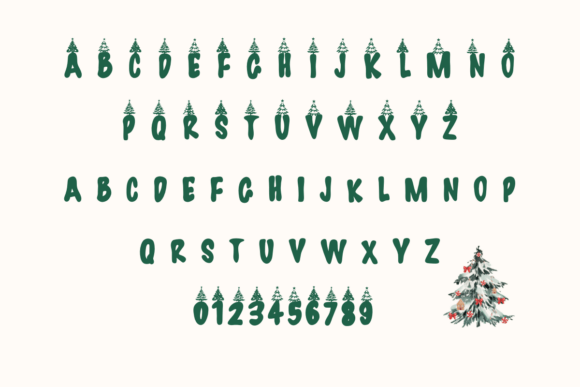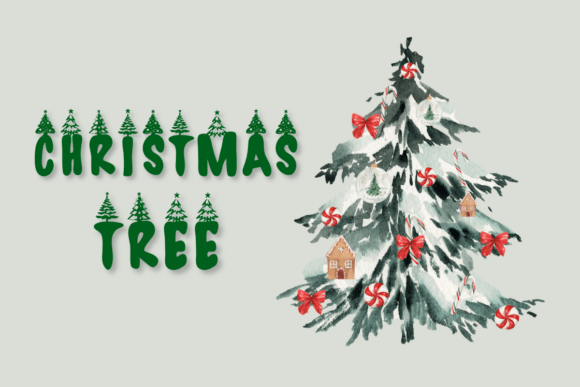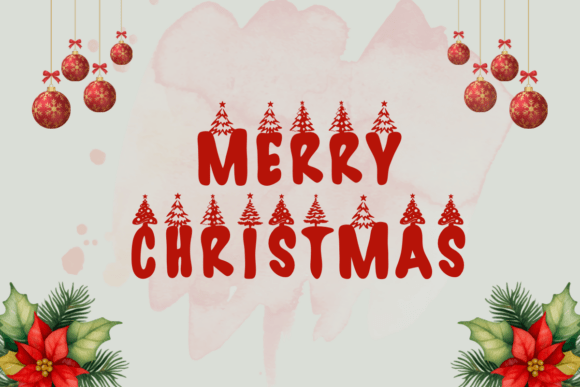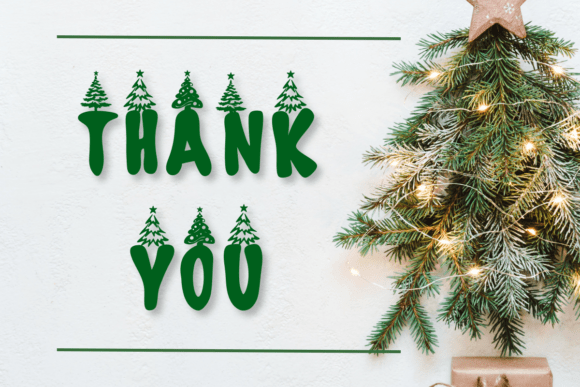
Deck the Halls with a Festive Font
It’s the most wonderful time of the year, and for many of us, that means breaking out the decorations, baking sweet treats, and getting creative. As you sit down to write your holiday cards or plan your festive social media posts, have you ever wished you had the perfect font to match the magic of the season? Enter the Christmas Tree Font, a delightful decorative font that’s sure to add a touch of whimsy to any project.
With its playful, tree-shaped characters, this font is perfect for taking notes, writing a diary, or making greeting cards. But its versatility doesn’t stop there – it’s also a great choice for banners, content, mugs, cards, shirts, stationery, and more! For designers, the Christmas Tree Font offers a unique opportunity to add a personal touch to their work, making it a valuable addition to any digital toolkit.
Key Features of Christmas Tree Font
- Font Style: Christmas Tree Font is a festive, handwritten font designed to resemble a Christmas tree. It features a unique, whimsical design.
- Size: The font includes multiple sizes, ranging from 12pt to 72pt, allowing for flexibility in design applications.
- Resolution: The font is designed for high-resolution use, making it suitable for printing and digital displays.
- Unique Characteristics: The font features intricate details, including ornaments and lights, that give it a distinctive, festive look.
Designer Review: Christmas Tree Font
Overall, I think the Christmas Tree Font is a fun and creative choice for holiday-themed projects. Here are some things that work well: ✨
- The font is highly customizable, with a range of colors and styles to choose from.
- The design is playful and festive, perfect for adding a touch of holiday cheer to your designs.
- The font is relatively easy to read, even at smaller sizes.
However, there are some limitations to consider: ⚠️
- The font may be too bold or over-the-top for some projects, especially those that require a more subtle or sophisticated look.
- The design may not be suitable for projects that require a lot of text, as the font can be quite ornate and distracting.
- The font may not be compatible with all operating systems or devices, which could lead to display issues.
Overall, I think the Christmas Tree Font is a great choice for holiday-themed projects that require a bold and playful look. However, it may not be the best choice for more subdued or sophisticated projects.
Practical Application Guide for Christmas Tree Font
Some tips for getting the most out of Christmas Tree Font include: using it in combination with other festive design elements, adjusting the font size and color to create a cohesive look, and experimenting with different font styles and effects.
Some common use cases for Christmas Tree Font include: creating holiday greeting cards, designing festive social media posts, and creating holiday-themed presentations or documents.
Alternatives to Christmas Tree Font
Great Vibes is a modern and elegant script font. It’s perfect for creating a festive and fun atmosphere, especially for Christmas and holiday-themed designs. Use it for headings, titles, and short paragraphs to add a touch of sophistication. Compared to Christmas Tree Font, Great Vibes has a more refined and polished look, making it suitable for a wider range of designs.
Carolyna Pro is a beautiful and ornate script font. It’s ideal for creating a luxurious and high-end feel, perfect for Christmas and holiday-themed designs that require a touch of elegance. Use it for titles, headings, and short paragraphs to add a sense of sophistication. Compared to Christmas Tree Font, Carolyna Pro has a more dramatic and opulent look, making it suitable for high-end designs.
Can I customize Christmas Tree Font to fit my design needs?
While Christmas Tree Font is a standalone font, it’s designed to be highly customizable. You can adjust the font size, color, and spacing to suit your design requirements. Additionally, you can use font editors like FontForge or FontLab to modify the font’s character set, adding or removing glyphs as needed.